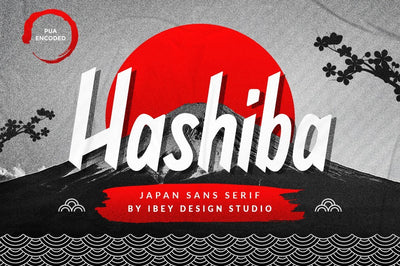
Hashiba - Japanese Font
Hashiba Japanese Font is a cool, Japanese-inspired display font. It will look stunning on any food menu, poster flyer, or print.
Hashiba Japanese Font can pair with calligraphy Japanese font, Japanese font brush, Japanese calligraphy font, or Japanese brush font.